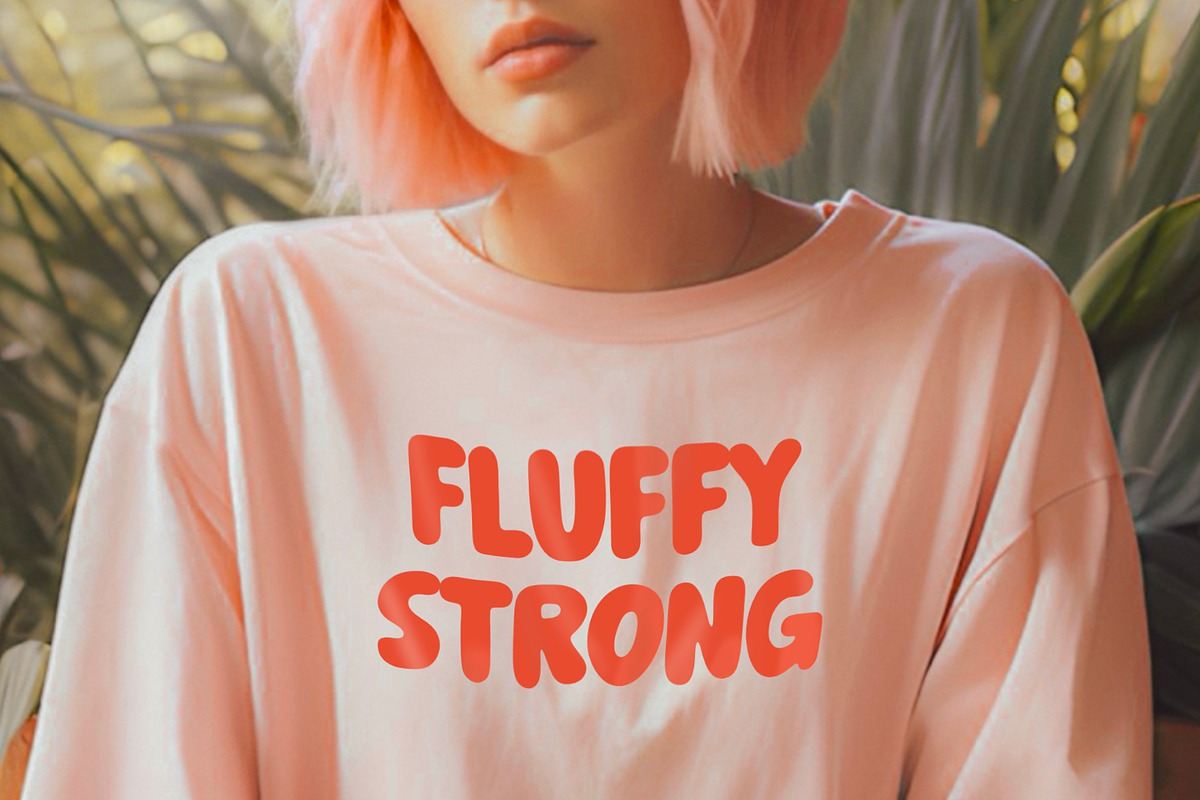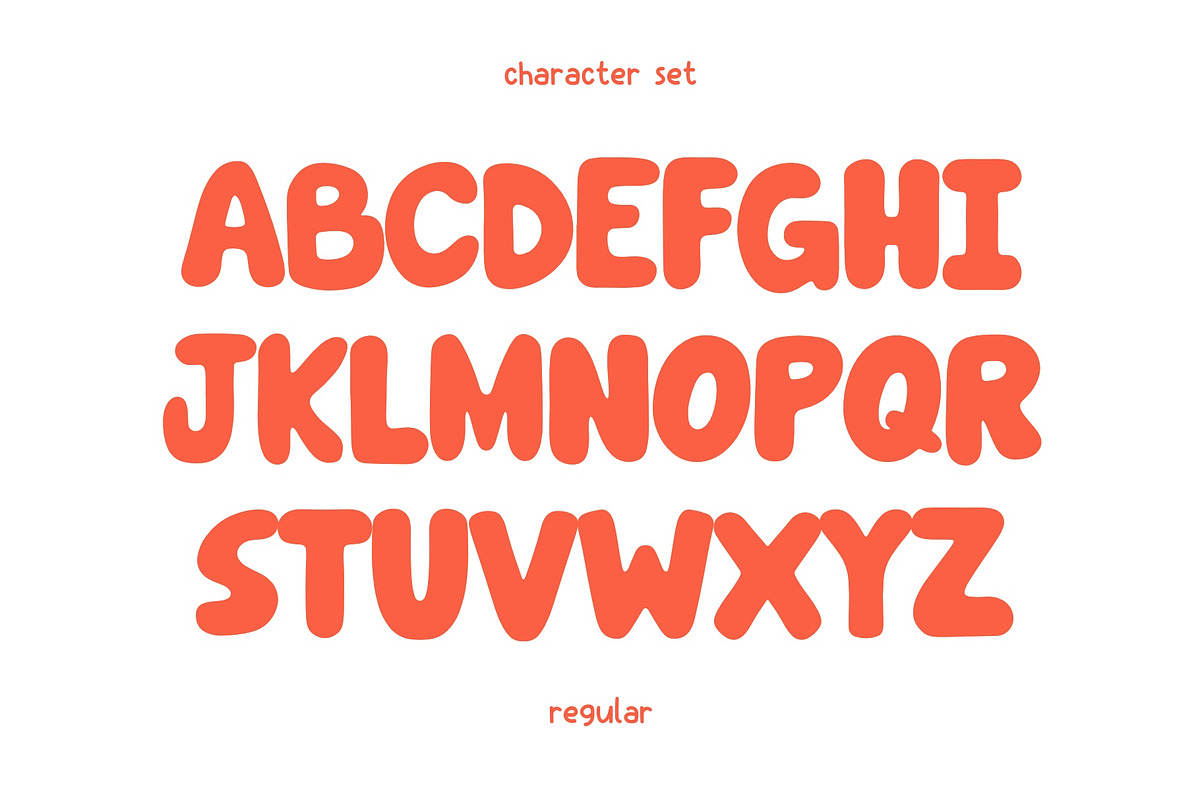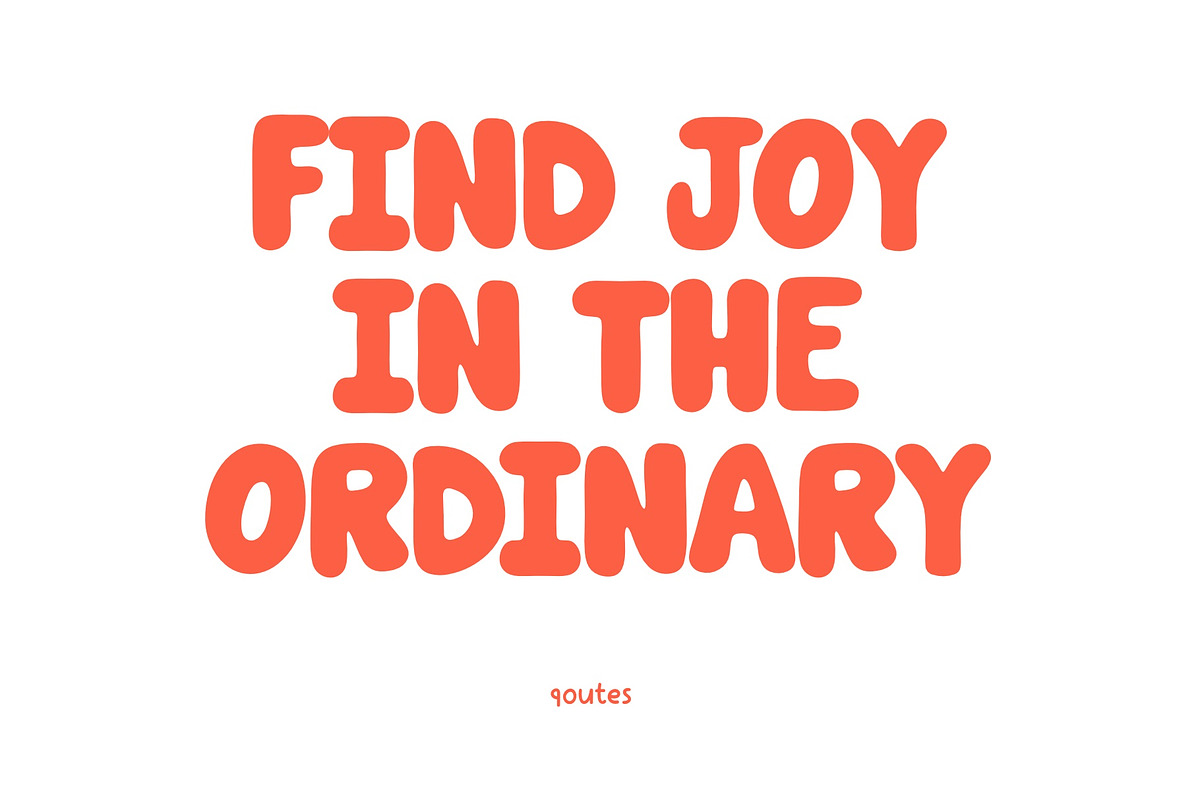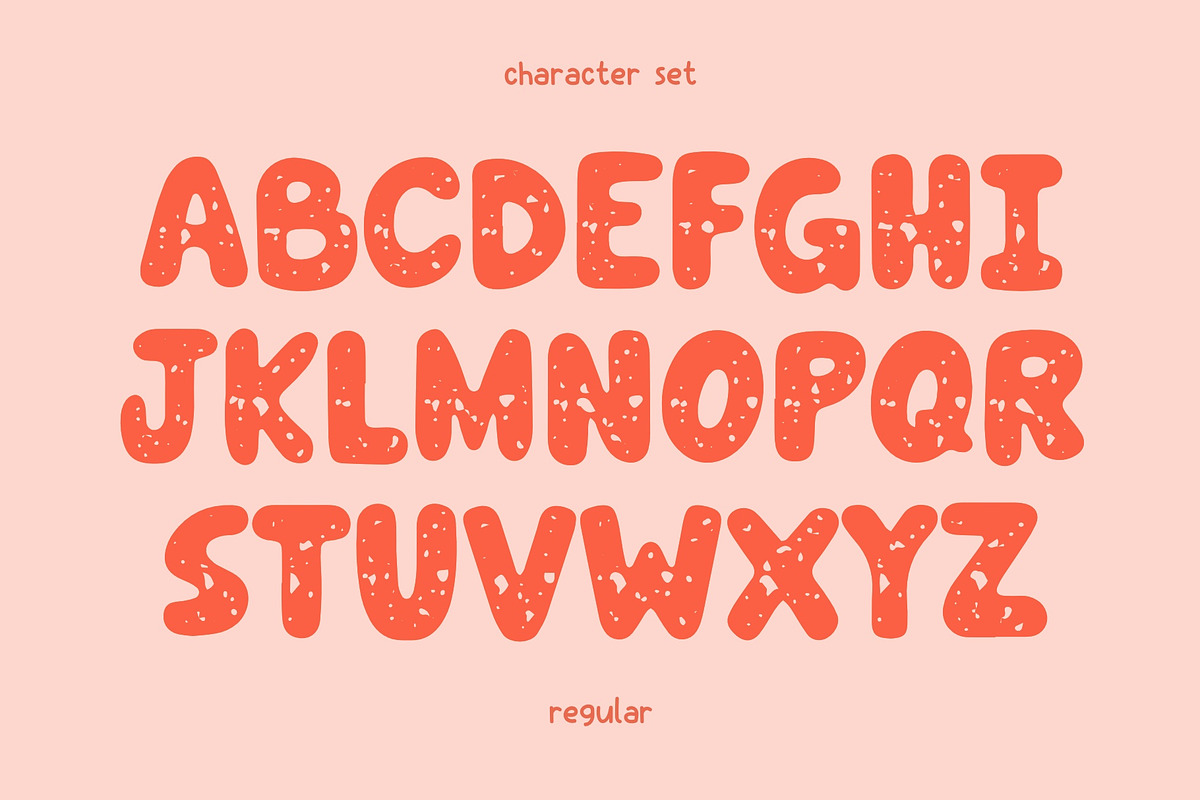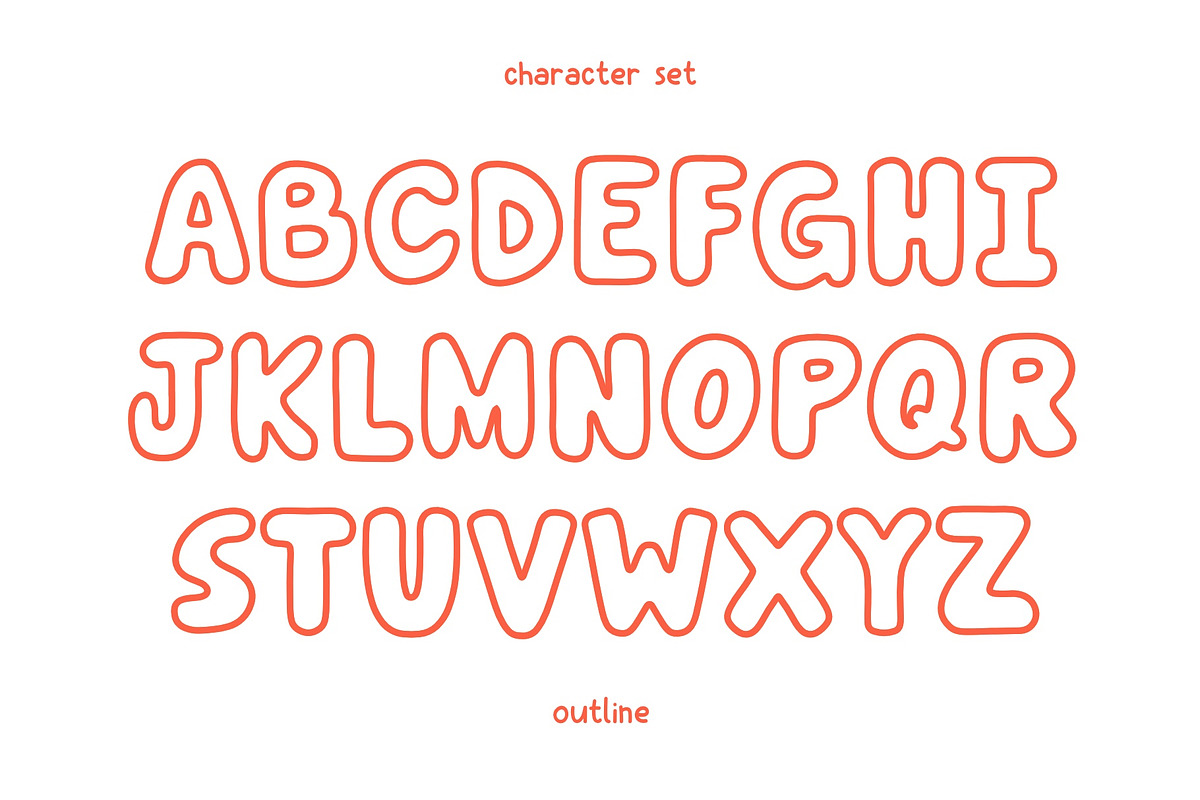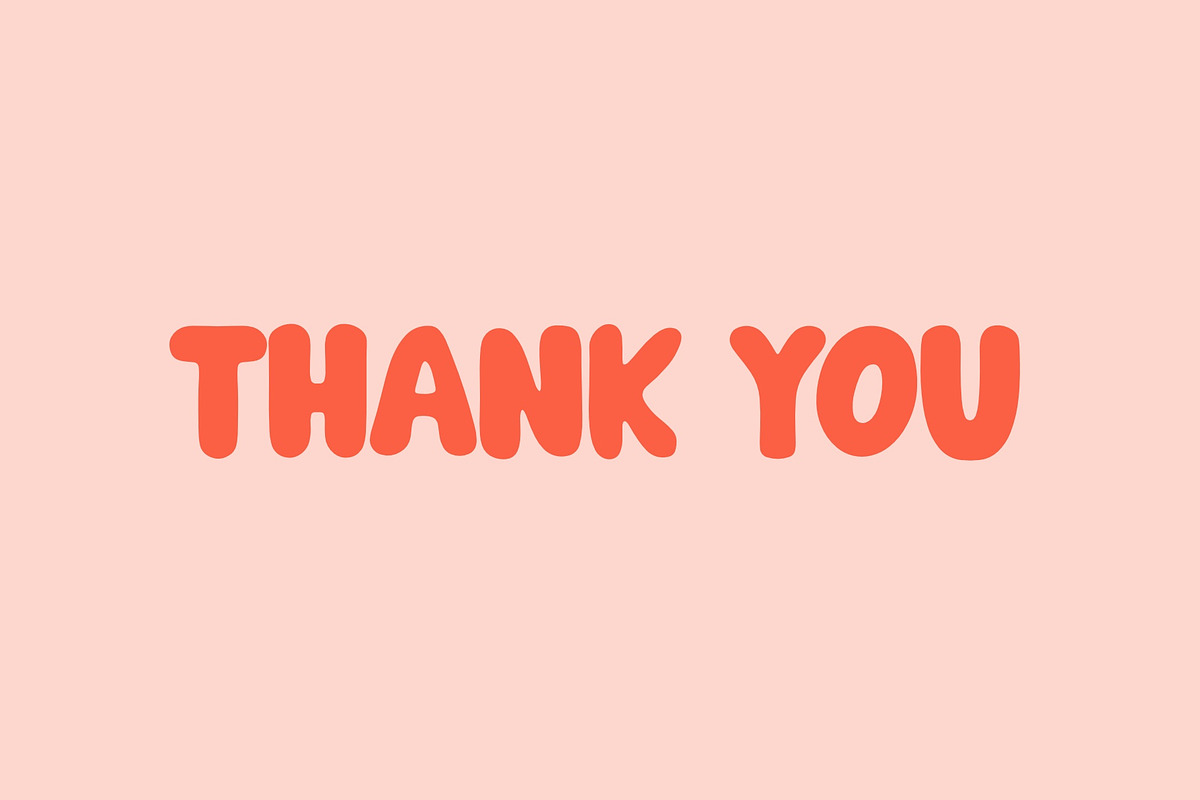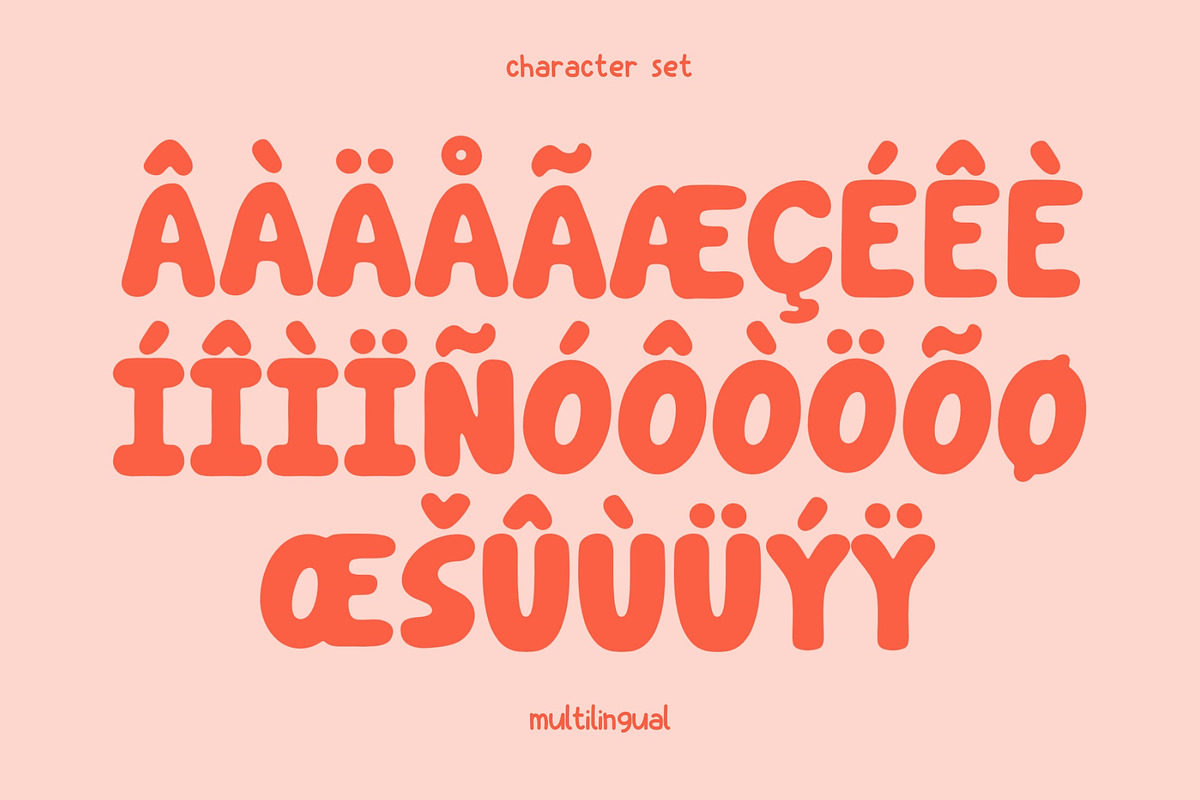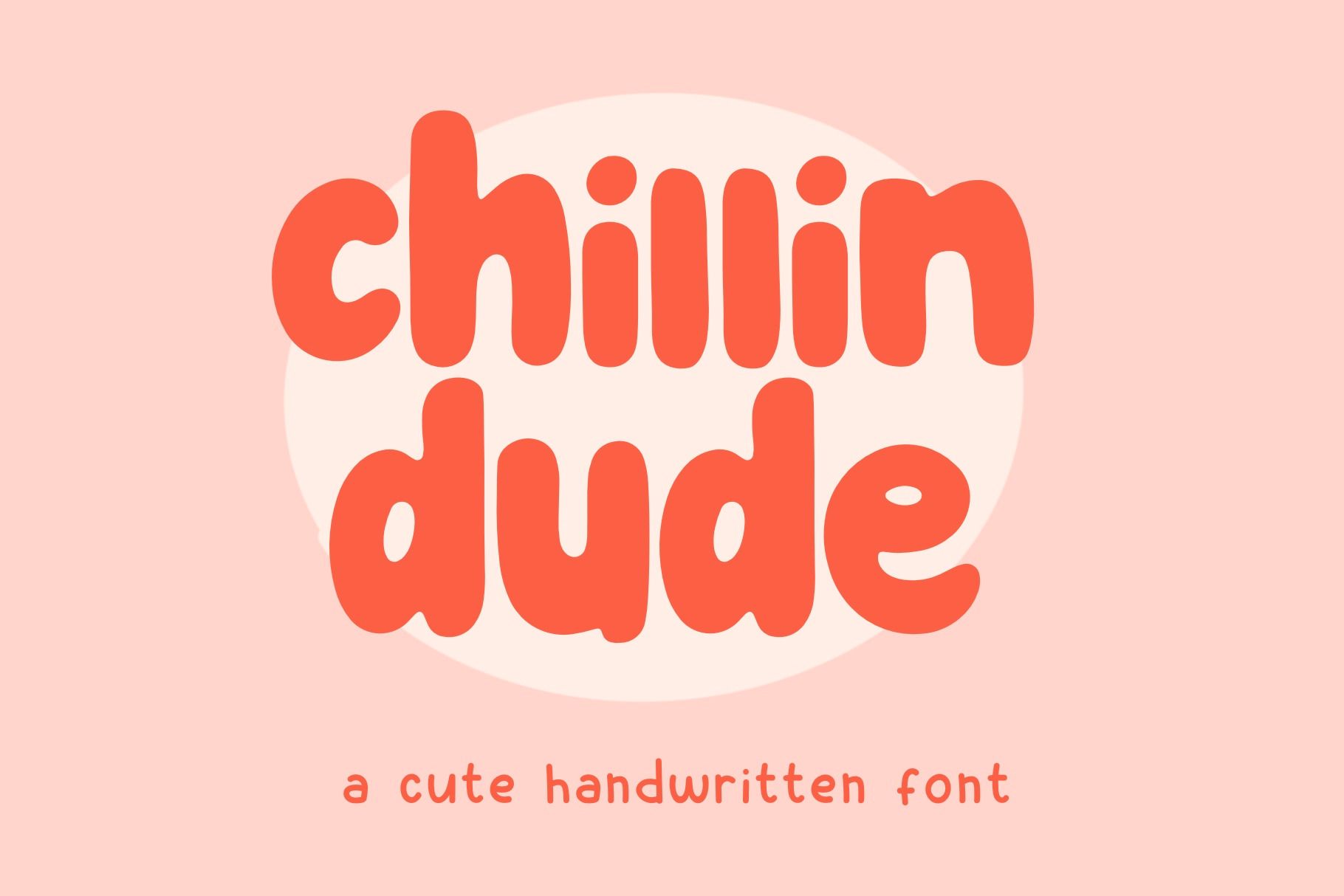
Chillin Dude Font - Sans Serif Font
Chillin Dude is a captivating Sans Serif font that exudes a bold and contemporary style. This typeface available in SVG format, compatible with advanced tools such as Cricut and Glowforge, and for use in Procreate. Designed with a focus on clarity and modern aesthetics, this font product combines clean lines with a touch of playfulness. The bold weight of Chillin Dude makes a strong statement, making it an ideal choice for headlines, banners, and any design element that demands attention.